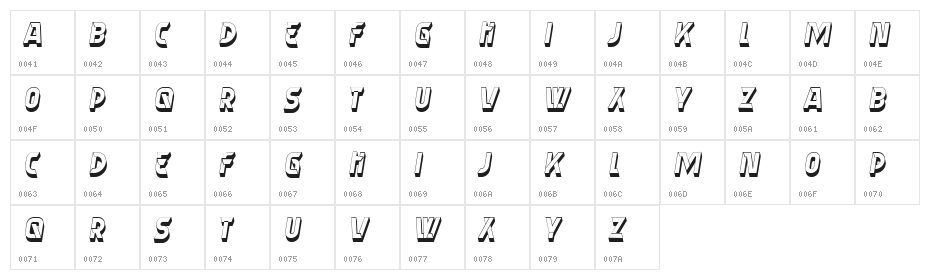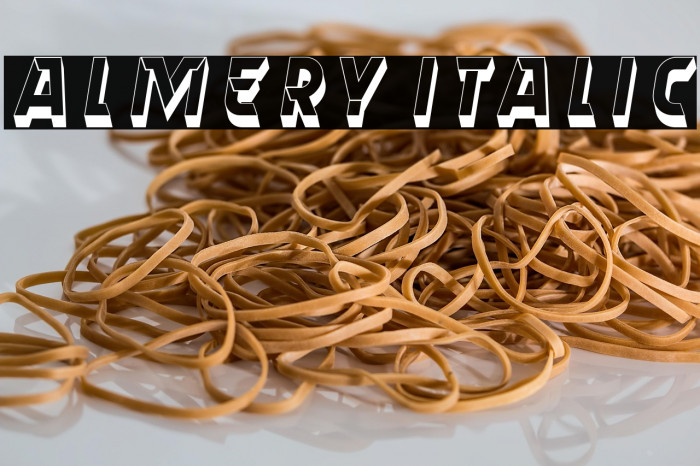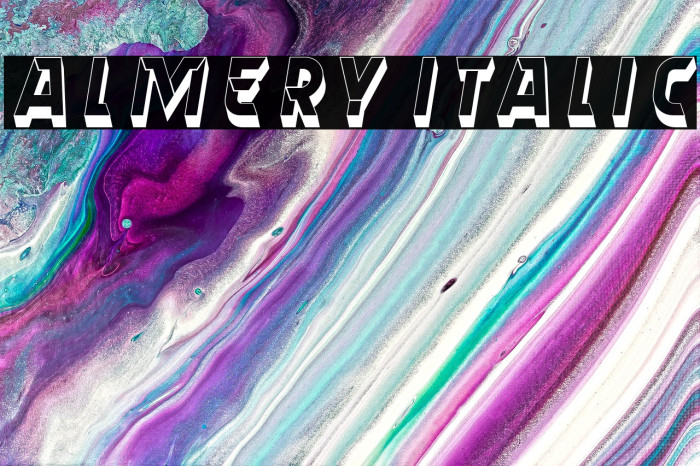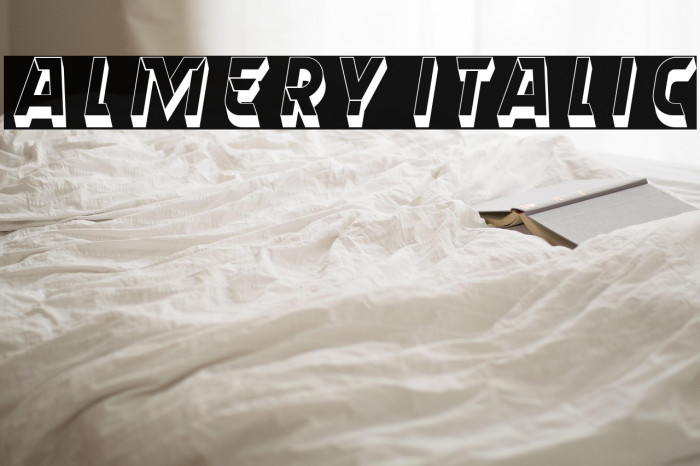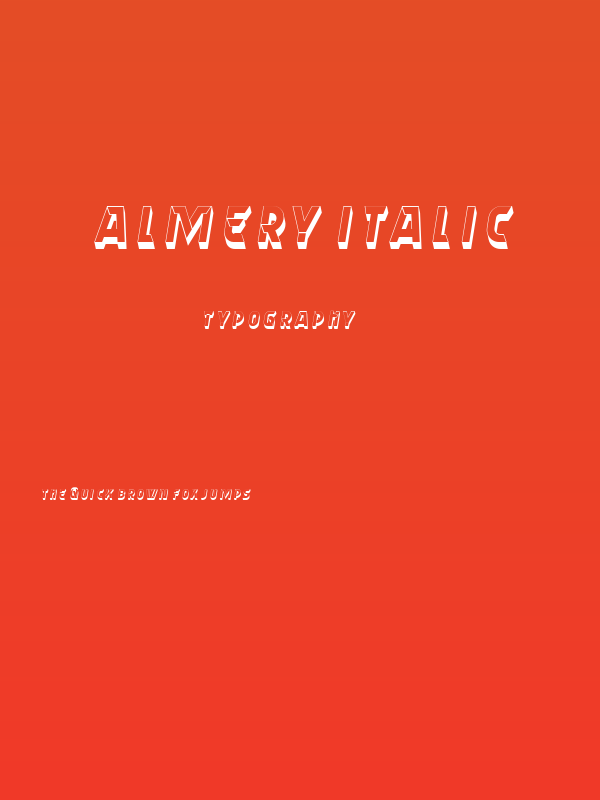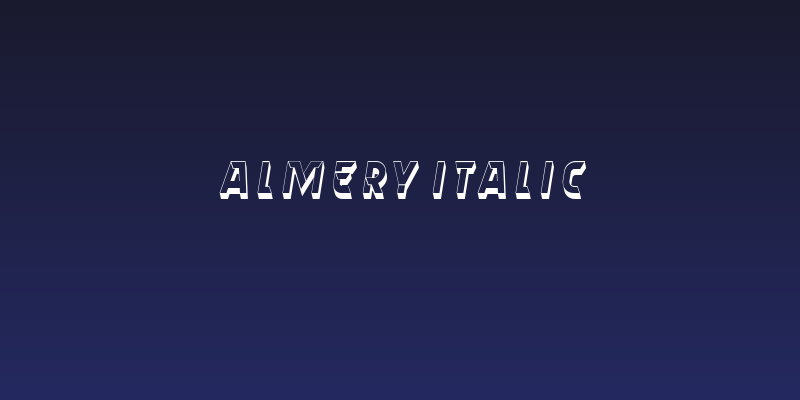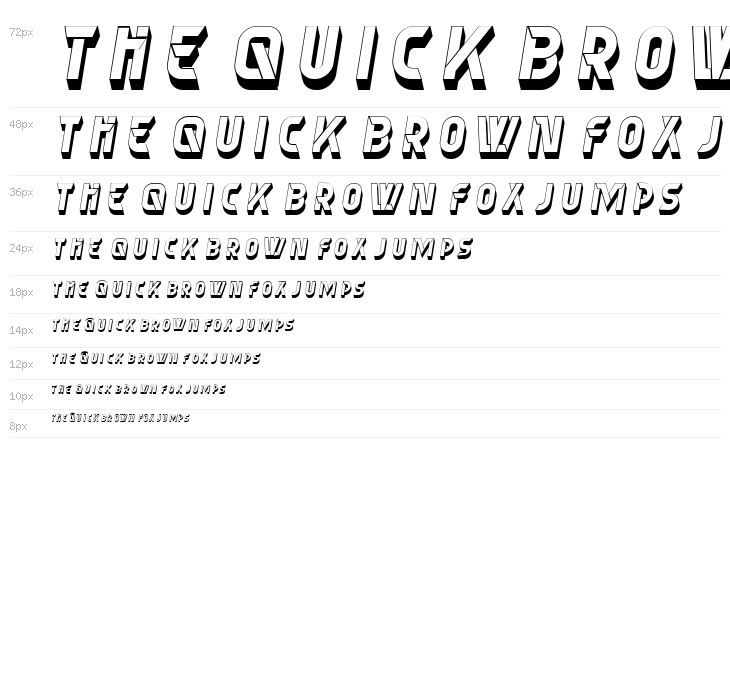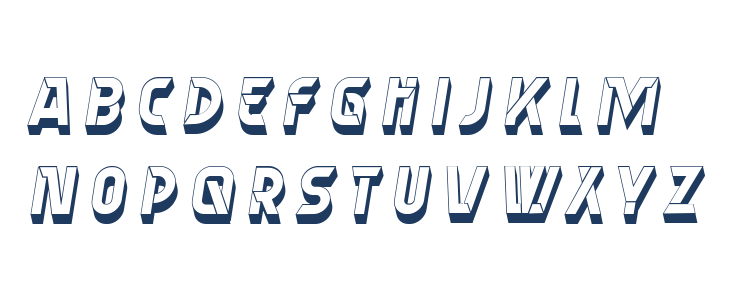
Almery Italic Font
Almery Italic Description
This font features a bold, three-dimensional design with a strong italic slant, giving it a dynamic and modern appearance. The characters are outlined with a thick black shadow, creating a striking contrast against the white fill. The geometric shapes and sharp angles of the letters contribute to its contemporary and edgy style. Each character is distinct, with a consistent width and height, ensuring readability while maintaining its decorative flair. The font's unique style makes it ideal for attention-grabbing headlines and titles.
| Proposed Projects | Perfect for use in posters, logos, branding materials, and any design project that requires a bold and modern aesthetic. |